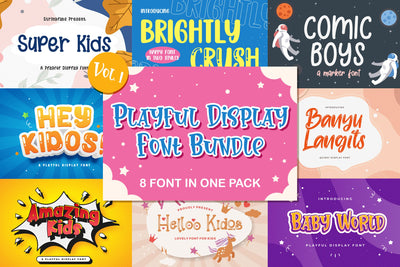
Playful Display Font Bundle Vol 1
Playful Display Font Bundle Vol 1 embodies fun, quirkiness and authenticity. This enchanting display font will turn any creative idea into a true standout.
This Display Font Bundle is a playful, and quirky font that contains 8 high quality fonts. Its friendly feel makes this font incredibly versatile, fitting a wide range of contexts. Get creative with its childlike playfulness, and use it to brighten up any kids and school project!
FONTS INCLUDED :
1. Brightly Crush
2. Comic Boys
3. Super Kids
4. Banyu Langits
5. Hey Kidos
6. Helloo Kidos
7. Baby World
8. Amazing Kids